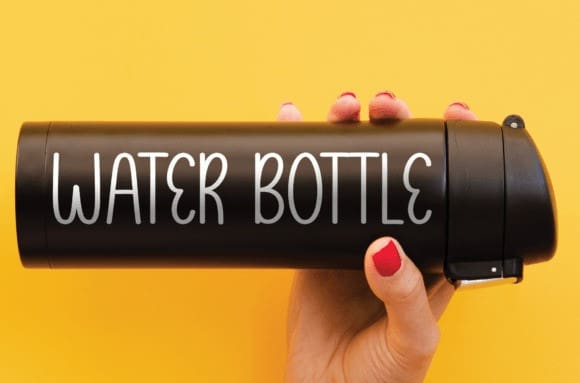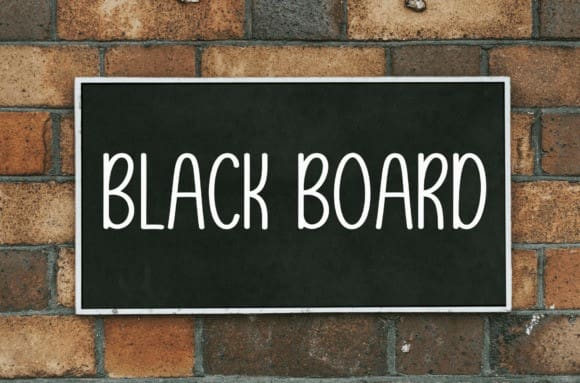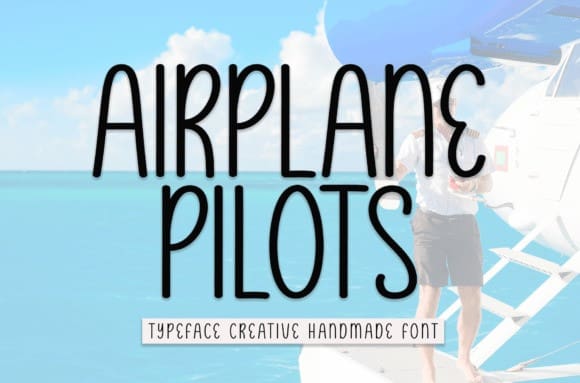
Airplane Pilots Font
Airplane Pilots Font is a sweet and friendly handwritten font. Fresh and neat, this font is ideal for writing wedding invitations, cards, or any other design that might need a fun touch!